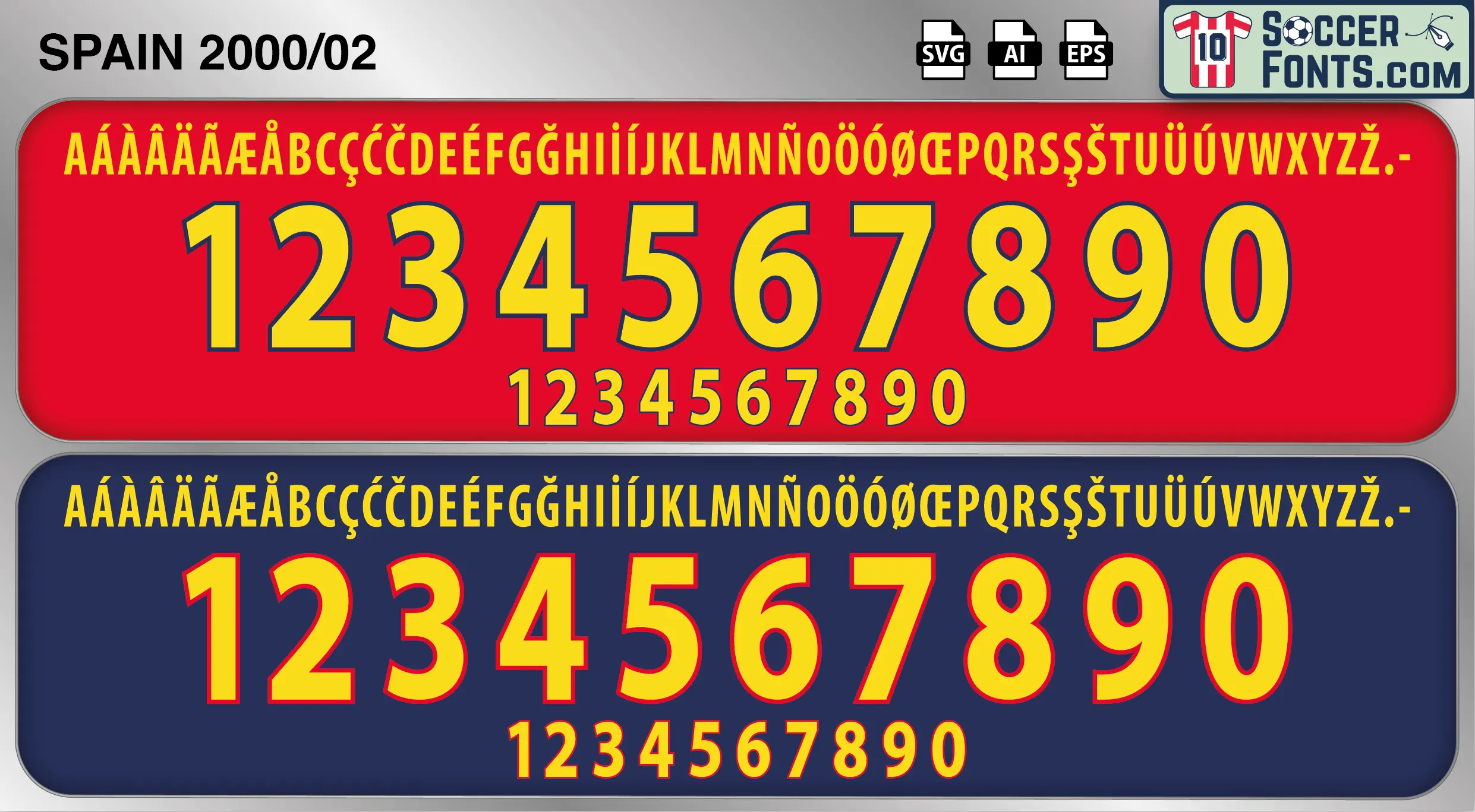
Spain 2000-02 Font
The Spain 2000-02 font is an editable soccer jersey lettering design in vector format inspired by the Spain kit style used during the 2000-02 football seasons. This football font artwork is prepared for football shirt recreations, custom jersey projects, football kit mockups and sports graphic design workflows.
The 2000-02 period represented an important stage in the evolution of the Spanish national team before the nation’s historic era of dominance. Spain entered UEFA EURO 2000 and later the 2002 FIFA World Cup with a talented squad featuring Raúl, Fernando Hierro, Gaizka Mendieta, Carles Puyol, Iker Casillas and Juan Carlos Valerón. During this era, Spanish football continued to develop a strong technical identity influenced by the success of clubs competing in European competitions. The national team reached the quarter-finals of the 2002 World Cup in South Korea and Japan, where a controversial elimination against hosts South Korea became one of the most discussed matches of the tournament.
The Spain 2000-02 font became associated with a generation that laid important foundations for the country’s future international success. Spain shirts from this era remain popular among football shirt collectors because of their connection with early-2000s football culture, legendary players and memorable World Cup moments. The Spain 2000-02 font reflects a period when Spanish football was steadily establishing itself among the strongest nations in Europe while building toward the achievements that would eventually transform the international game.